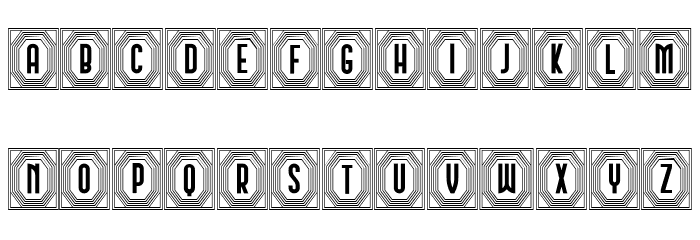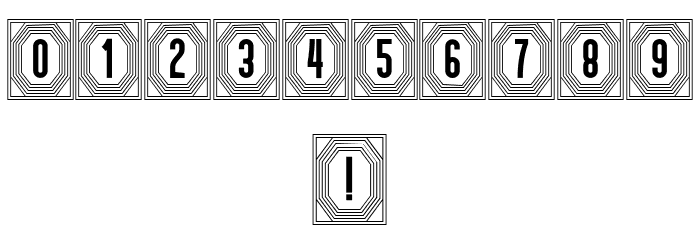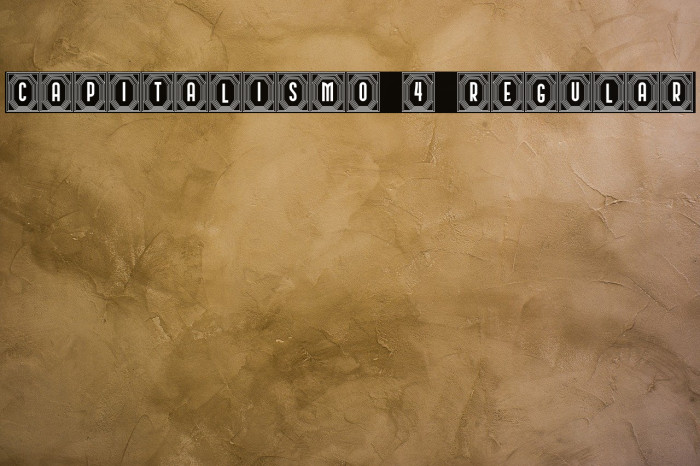
Capitalismo 4 Regular Font
This font features a bold, geometric design with each character enclosed within a decorative, multi-layered octagonal frame. The letters are uppercase and have a strong, impactful presence, making them ideal for attention-grabbing designs. The characters are evenly spaced within their frames, providing a uniform and structured appearance. The font's style is reminiscent of Art Deco, with its clean lines and symmetrical shapes, offering a vintage yet timeless appeal. The numbers and punctuation marks follow the same design principles, ensuring consistency across all characters.
A bold, geometric font with Art Deco-inspired octagonal frames.
- Font: Capitalismo 4 Regular
- Proposed Projects: Ideal for vintage-themed posters, branding, packaging, and signage that require a strong visual impact.
- Overall Style: Vintage